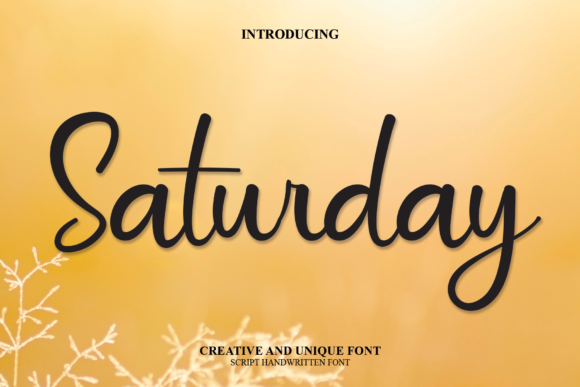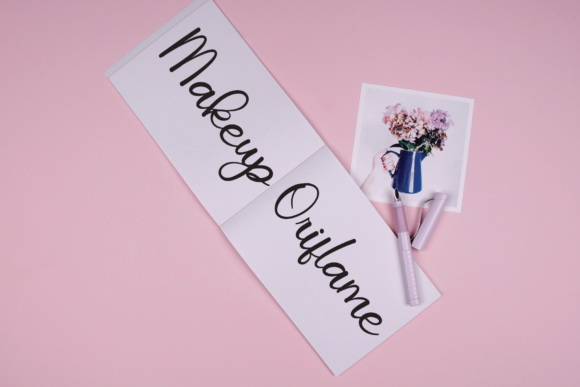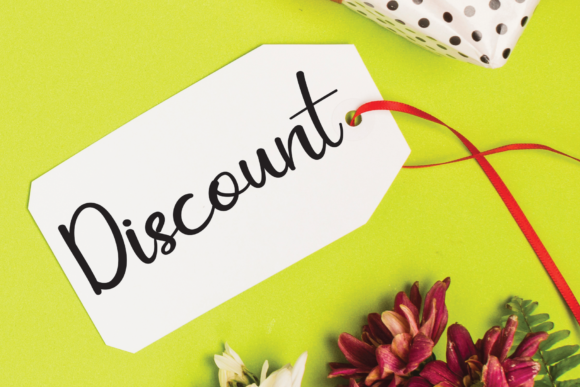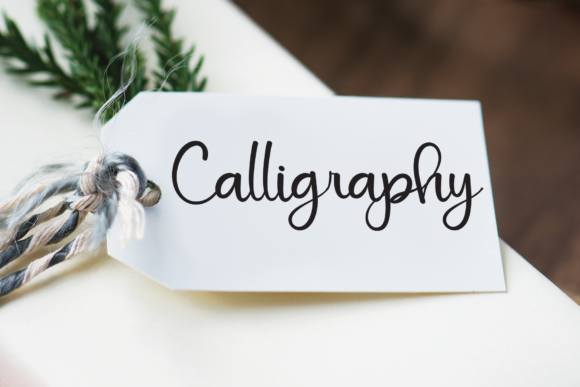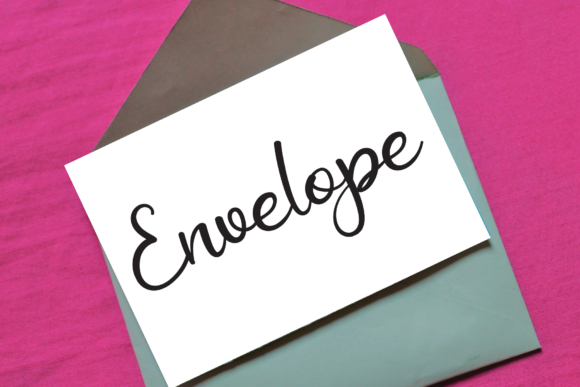
About Saturday Font
This is a sweet, romantic, and beautiful script font. It features beautiful curves in each letter. This font is PUA coded, which means you can access all the glyphs and sweeps easily!